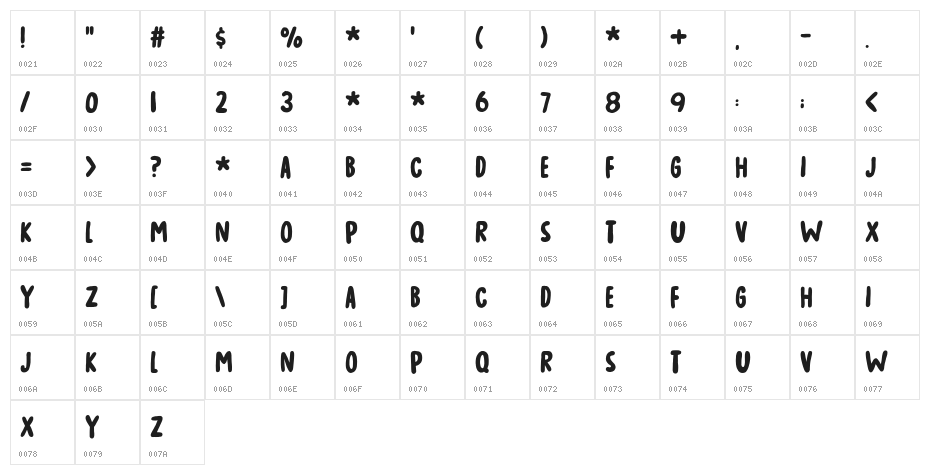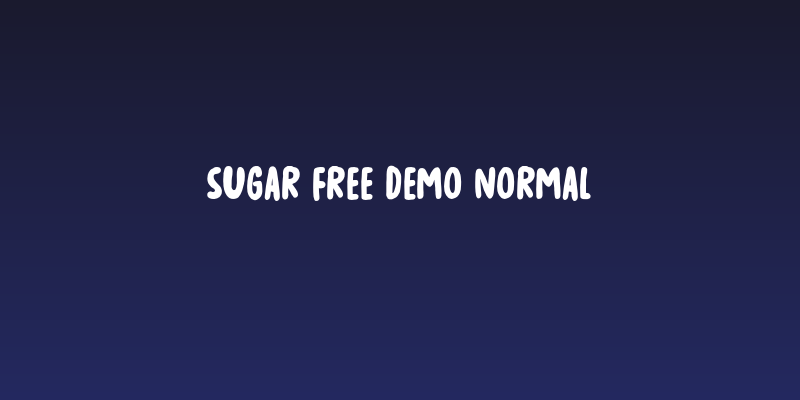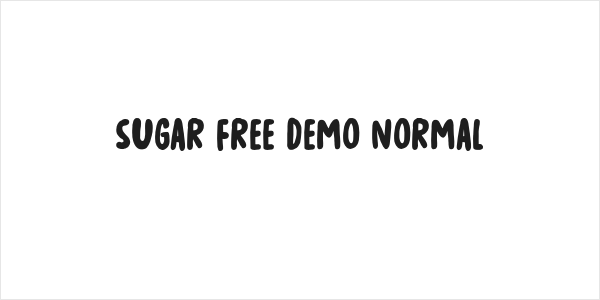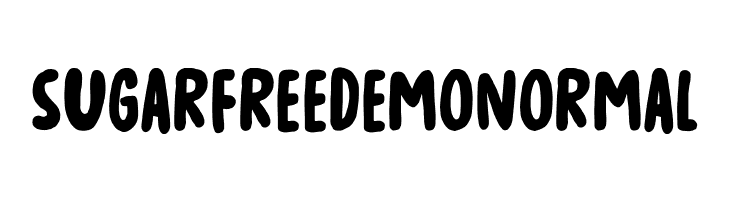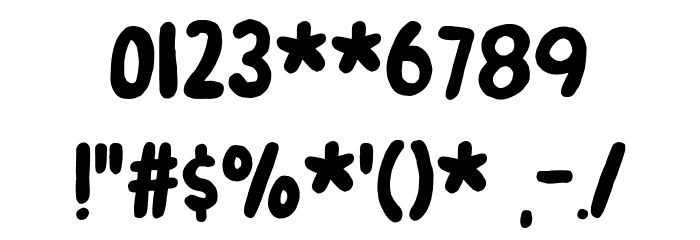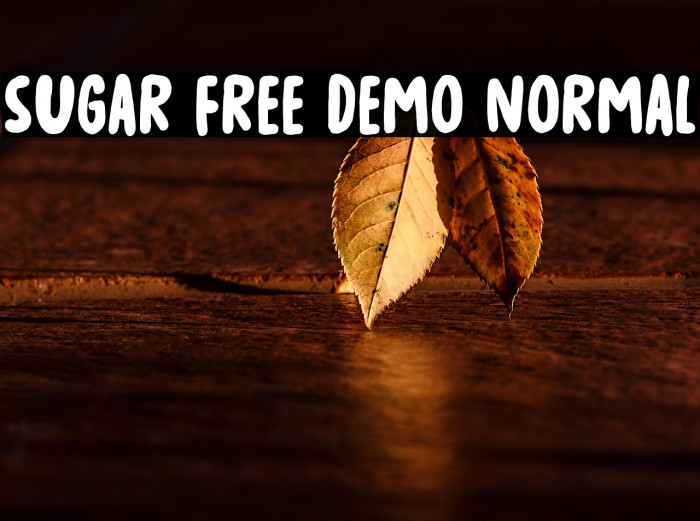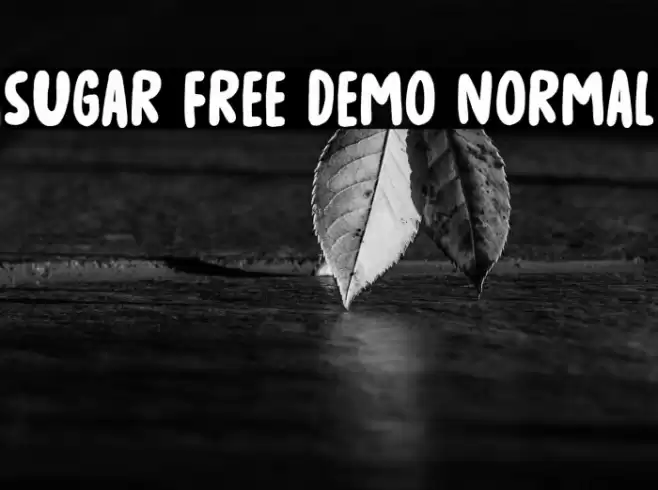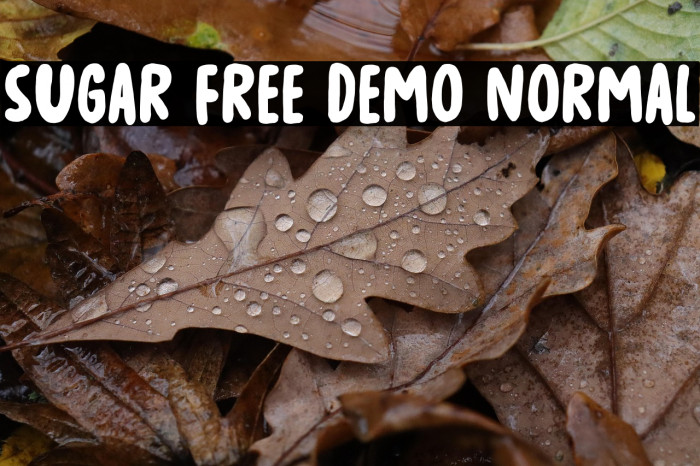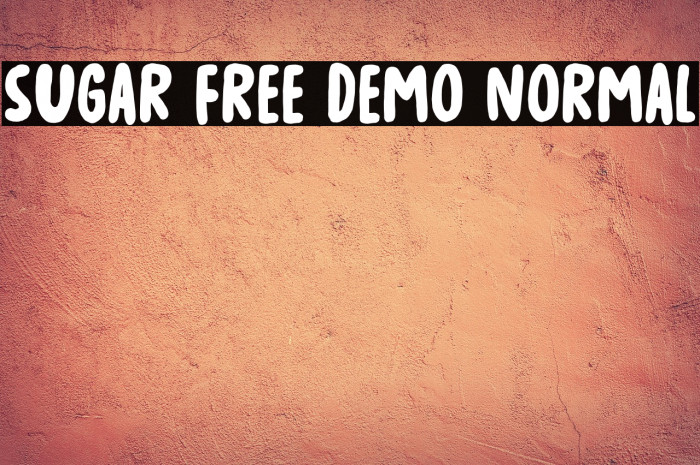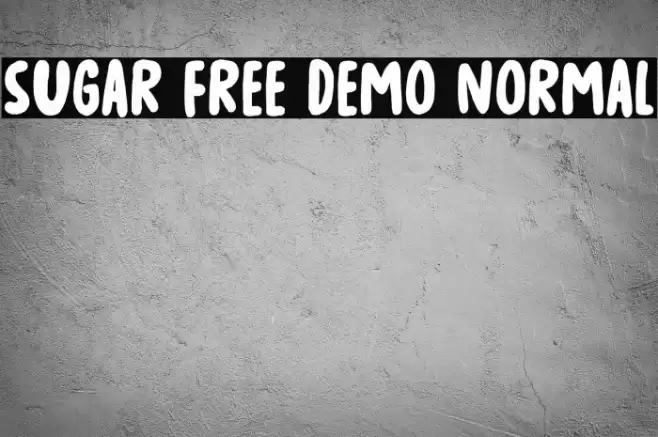
Sugar Free DEMO Normal Font
This playful and bold font features rounded, thick strokes that give it a friendly and approachable appearance. The characters are slightly irregular, adding a hand-drawn feel that enhances its casual and informal style. The uppercase and lowercase letters maintain a consistent weight, contributing to a cohesive look. The numbers and special characters are designed with the same playful aesthetic, making them suitable for a variety of creative projects. The overall design is both eye-catching and legible, making it ideal for headlines, posters, and branding that require a touch of whimsy.
| Overall Style | Playful, Casual |
| Use Case | Headlines, Posters, Branding |
| Proposed Projects | Ideal for children's books, playful branding, posters, and creative social media graphics. |